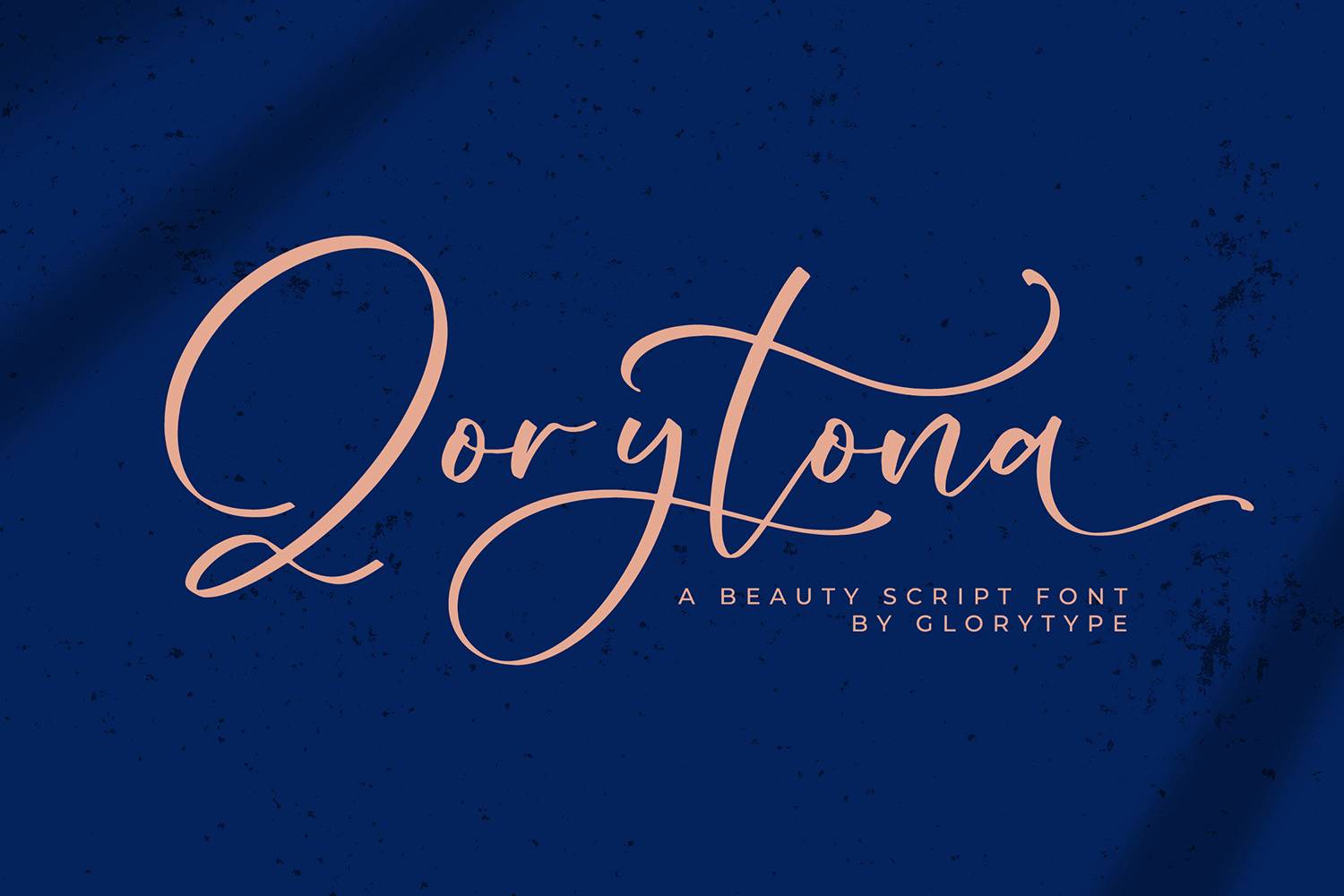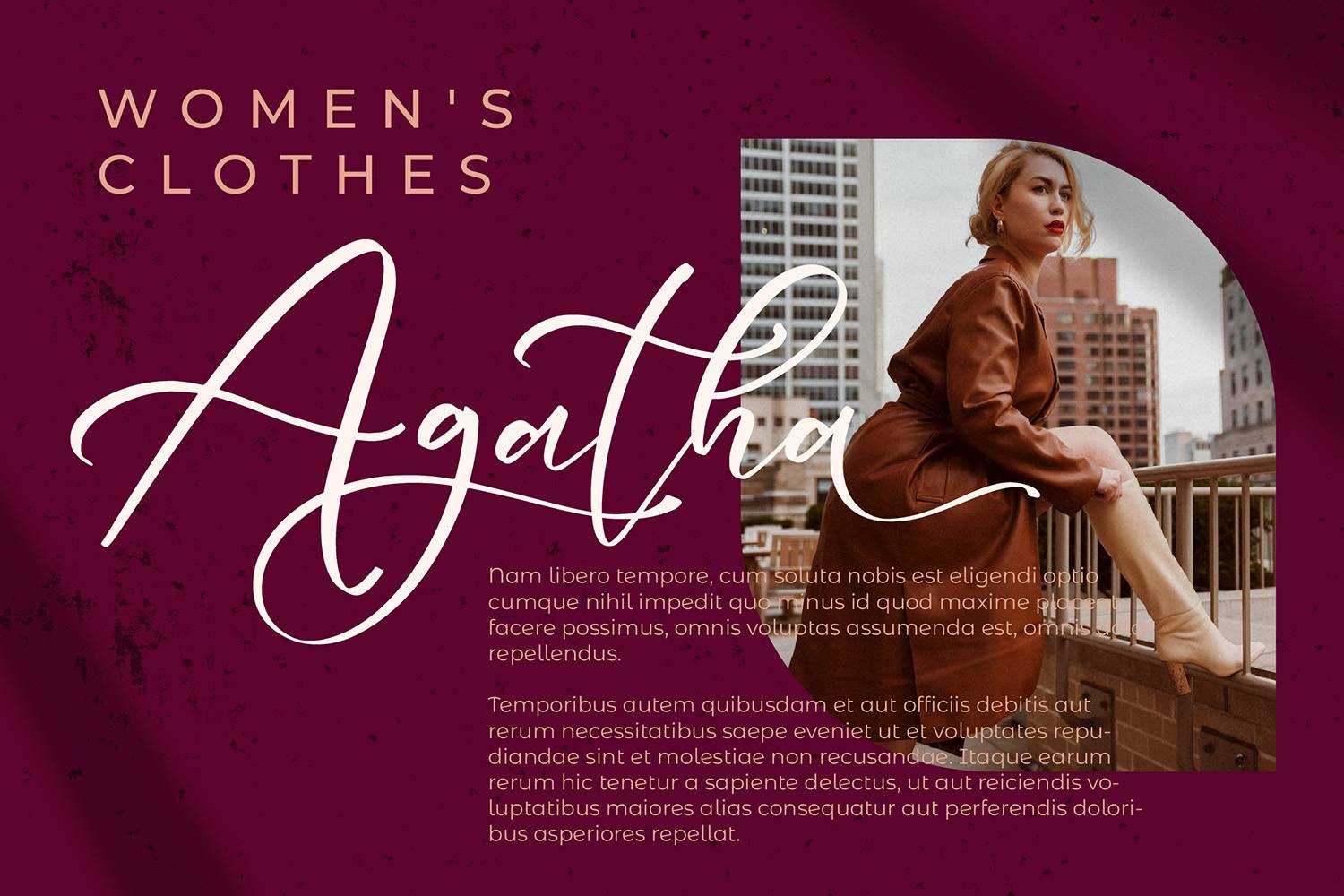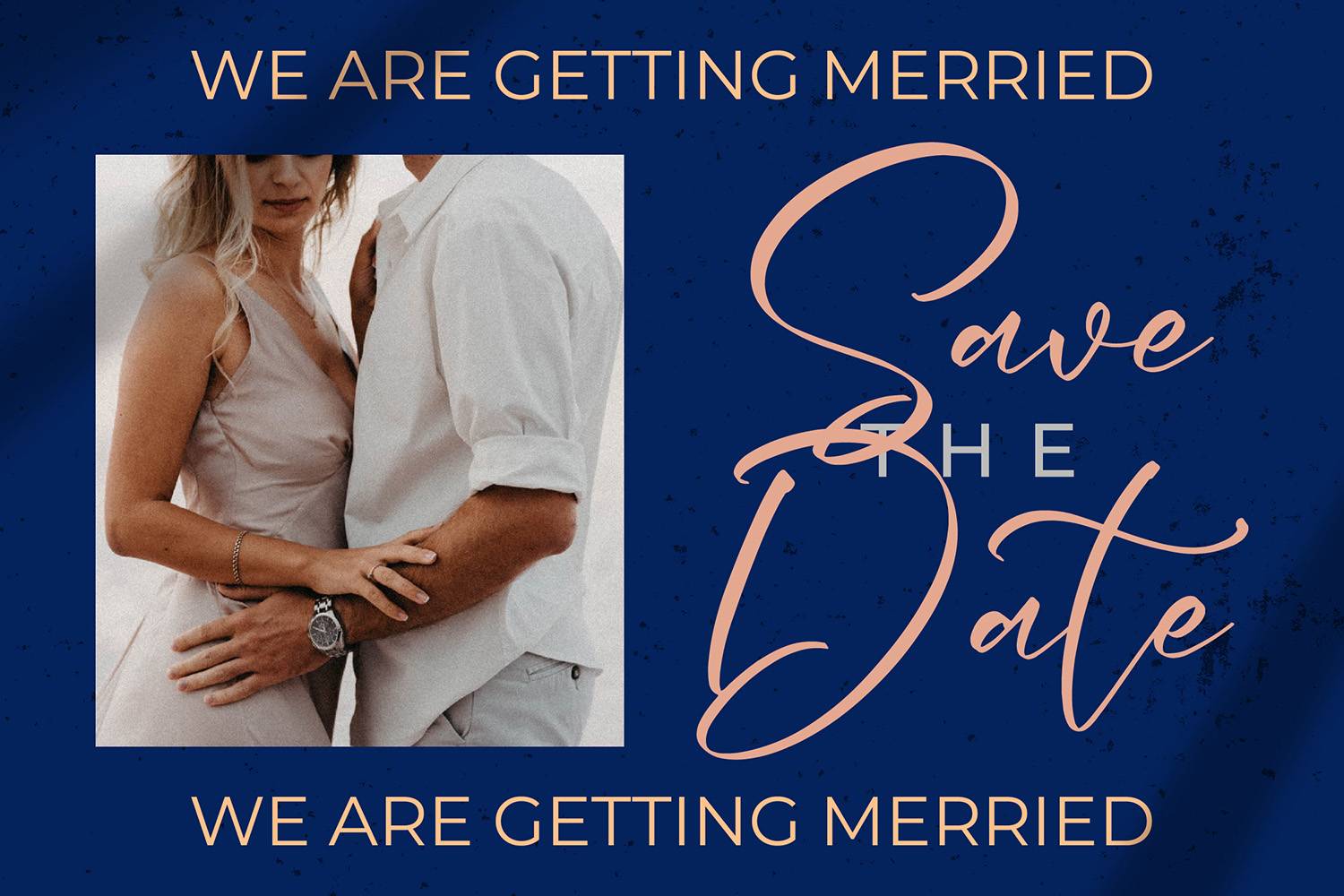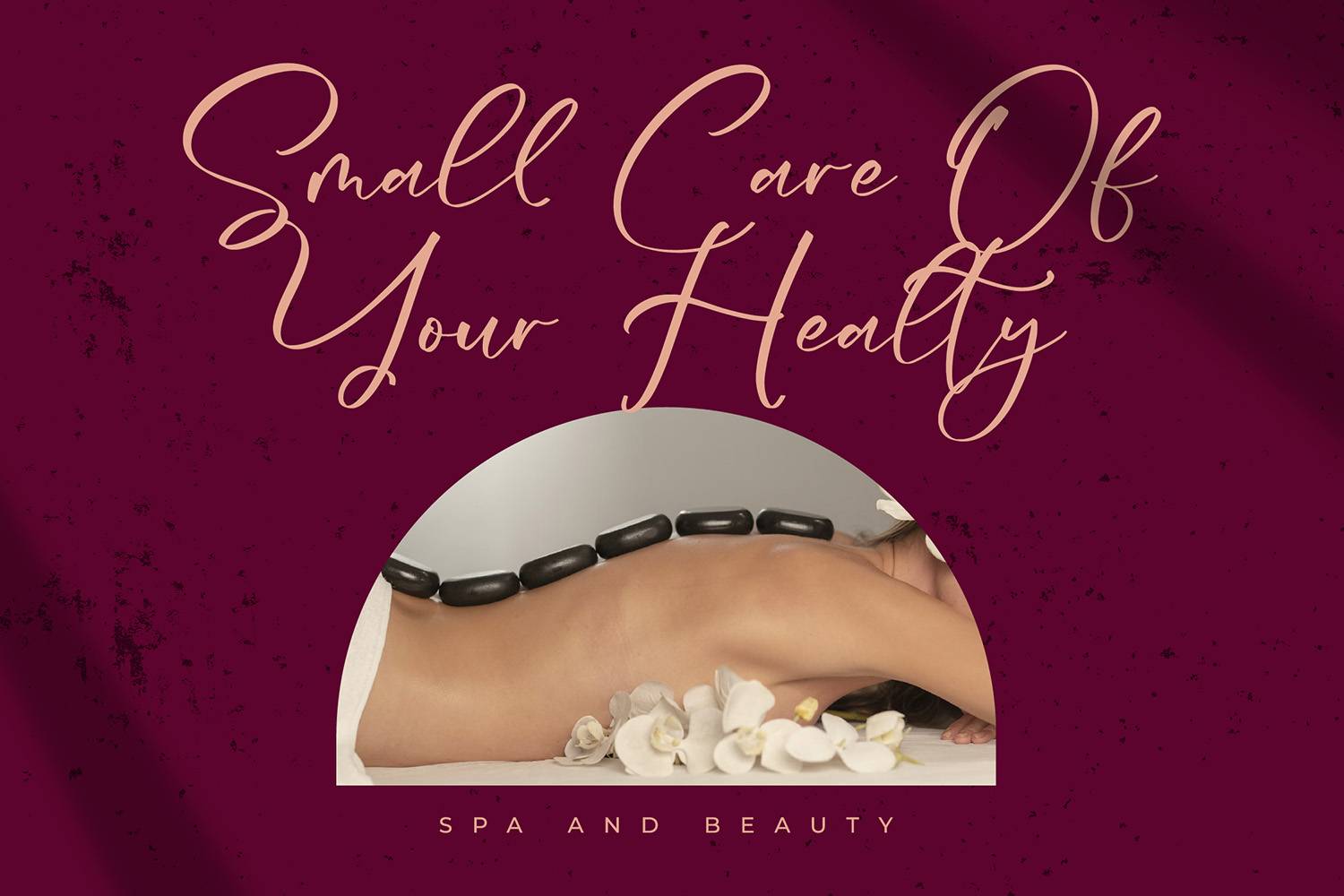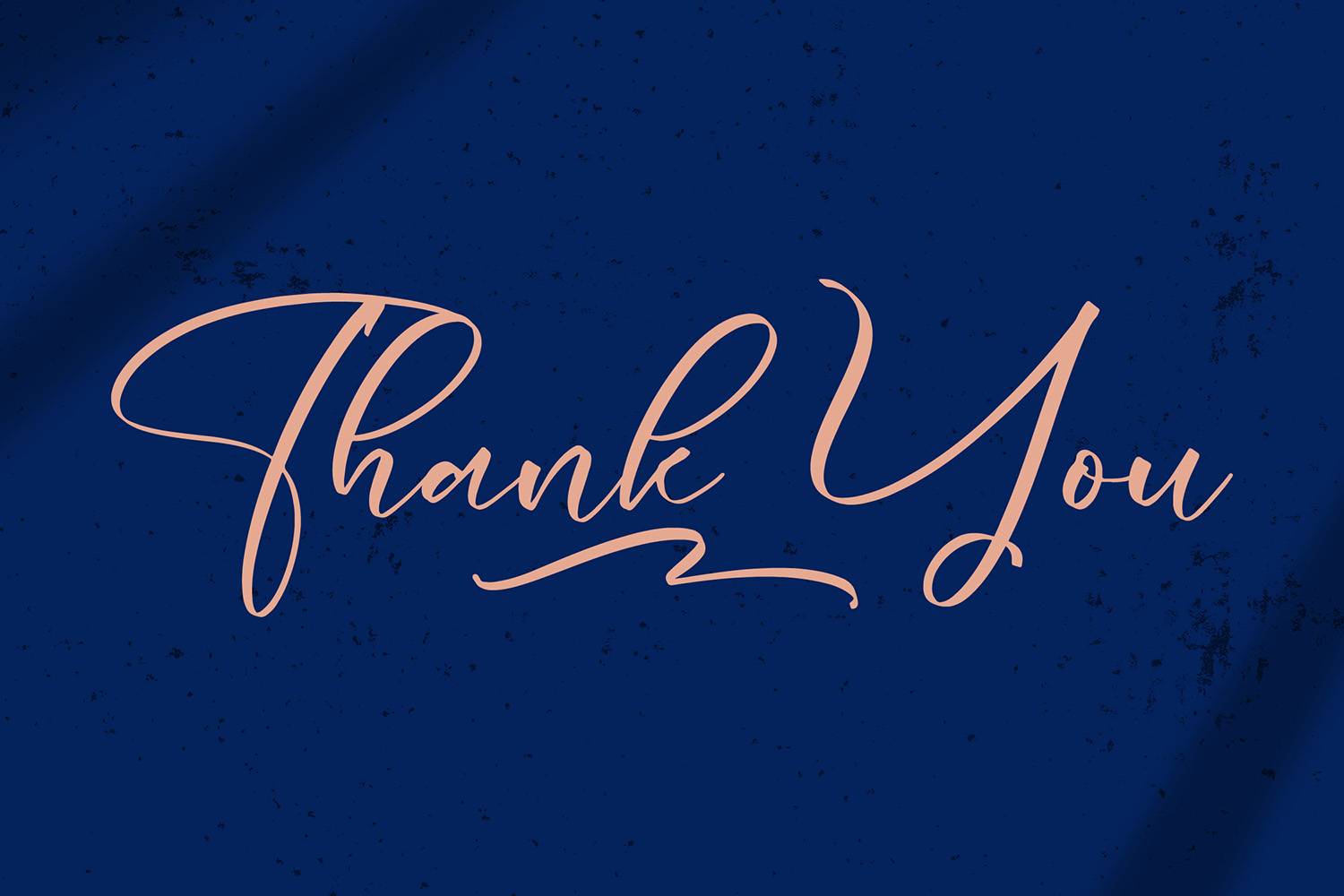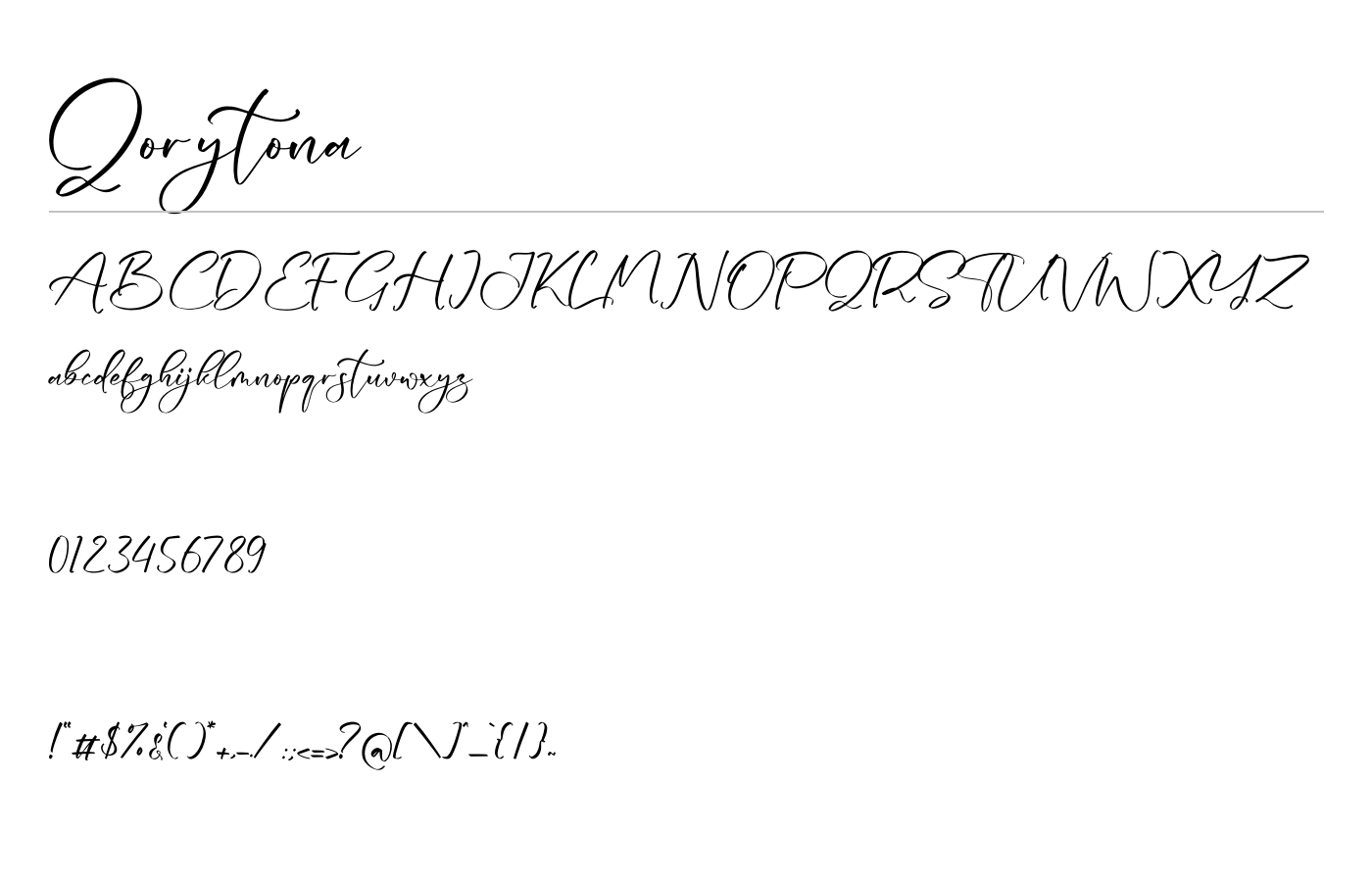
Qorytona is a delicate, script-style font that offers an elegant and flowing handwritten feel. Its thin, graceful strokes with smooth curves and high contrast convey sophistication and charm, making it ideal for wedding invitations, luxury branding, and feminine design projects where a touch of refinement is desired. This font works best in headlines or decorative text rather than body copy, highlighting its stylish and artistic personality.
Qorytona Font
About Qorytona Font